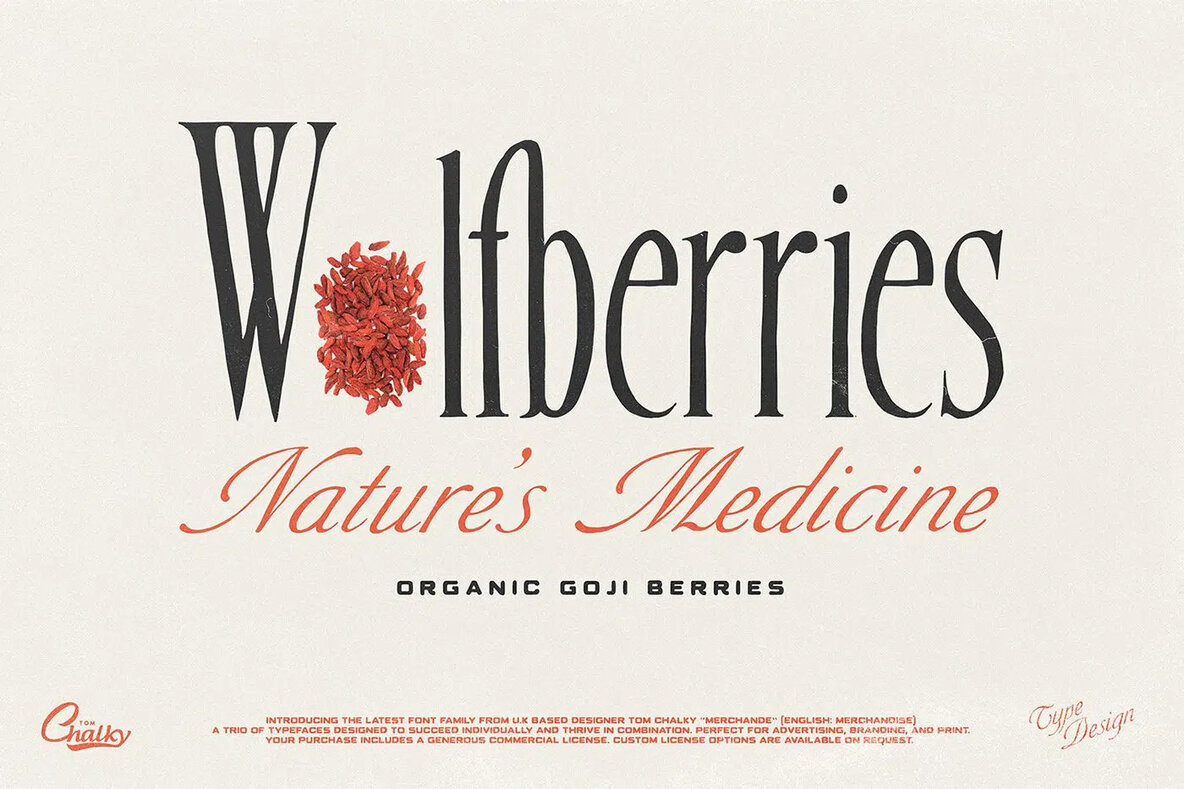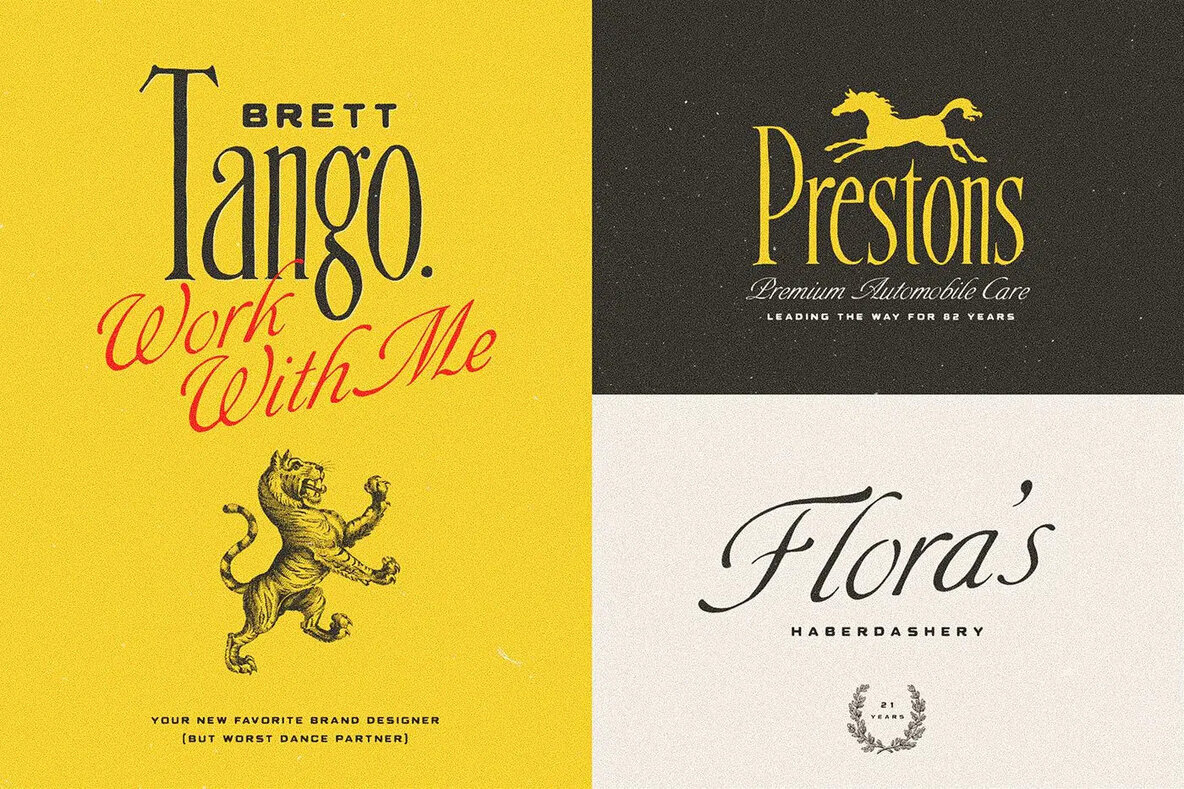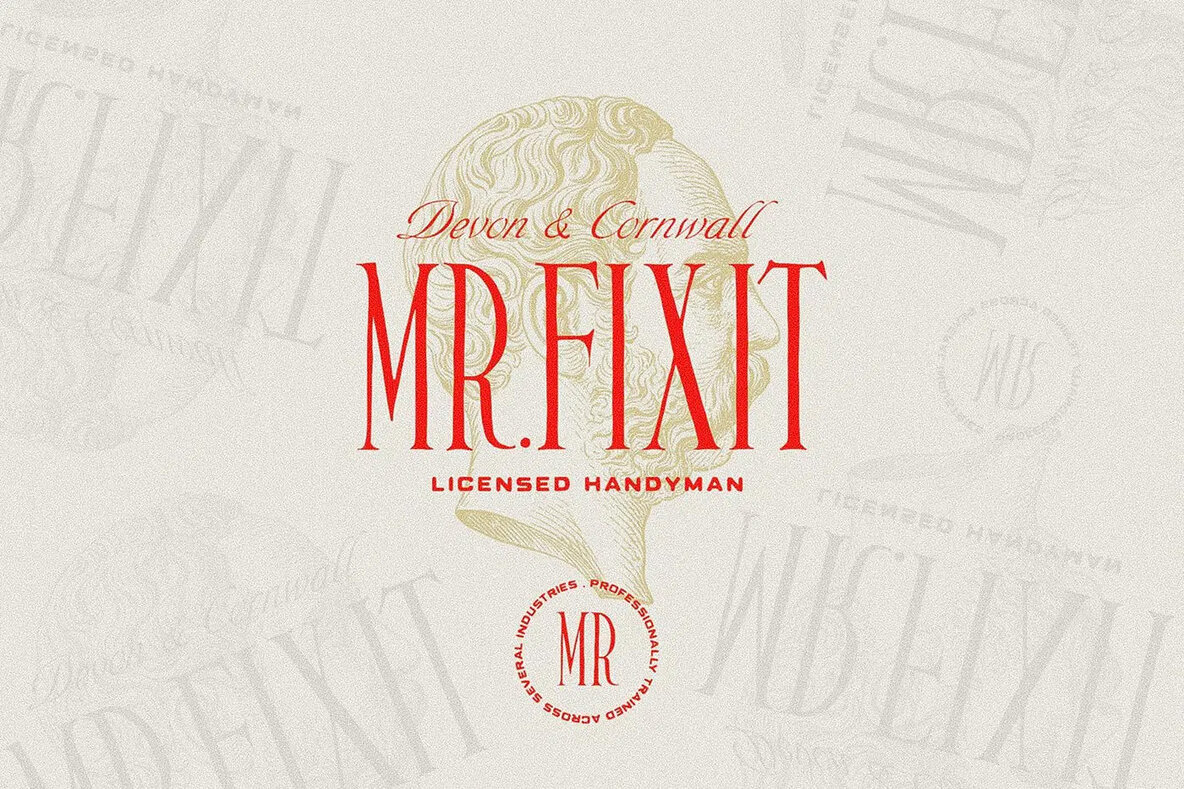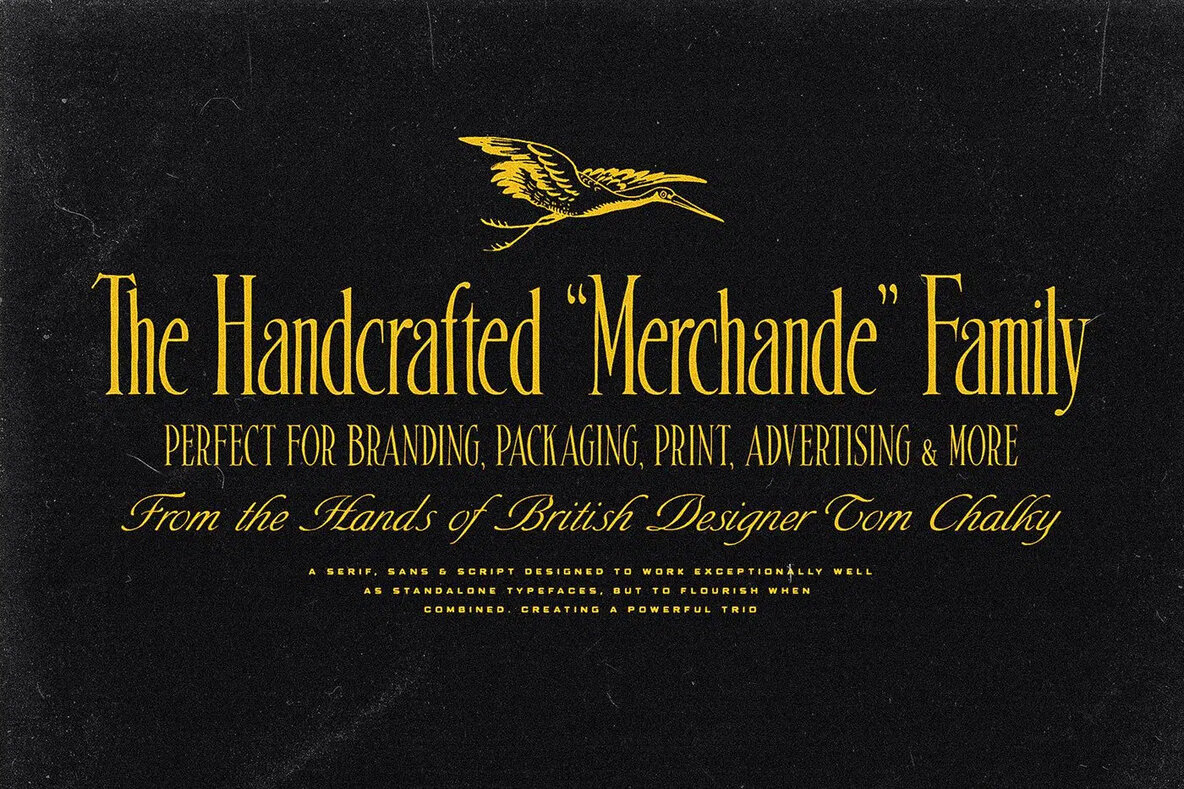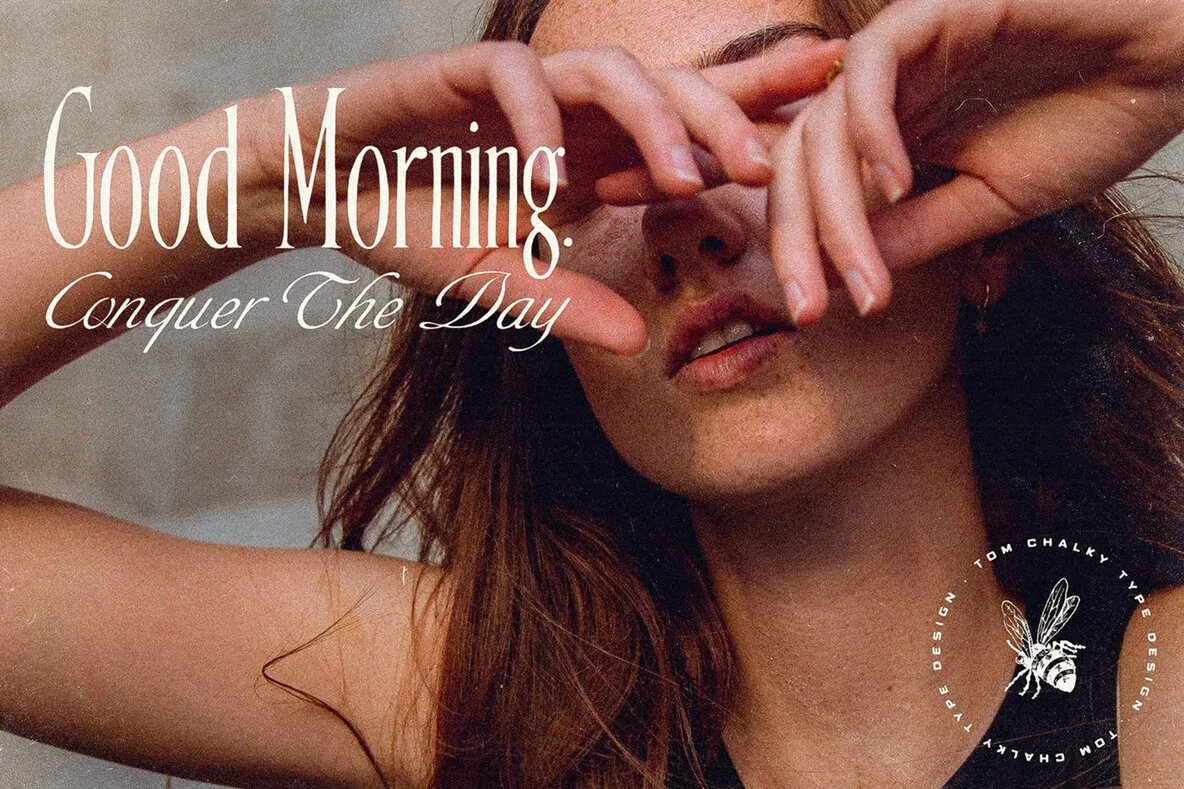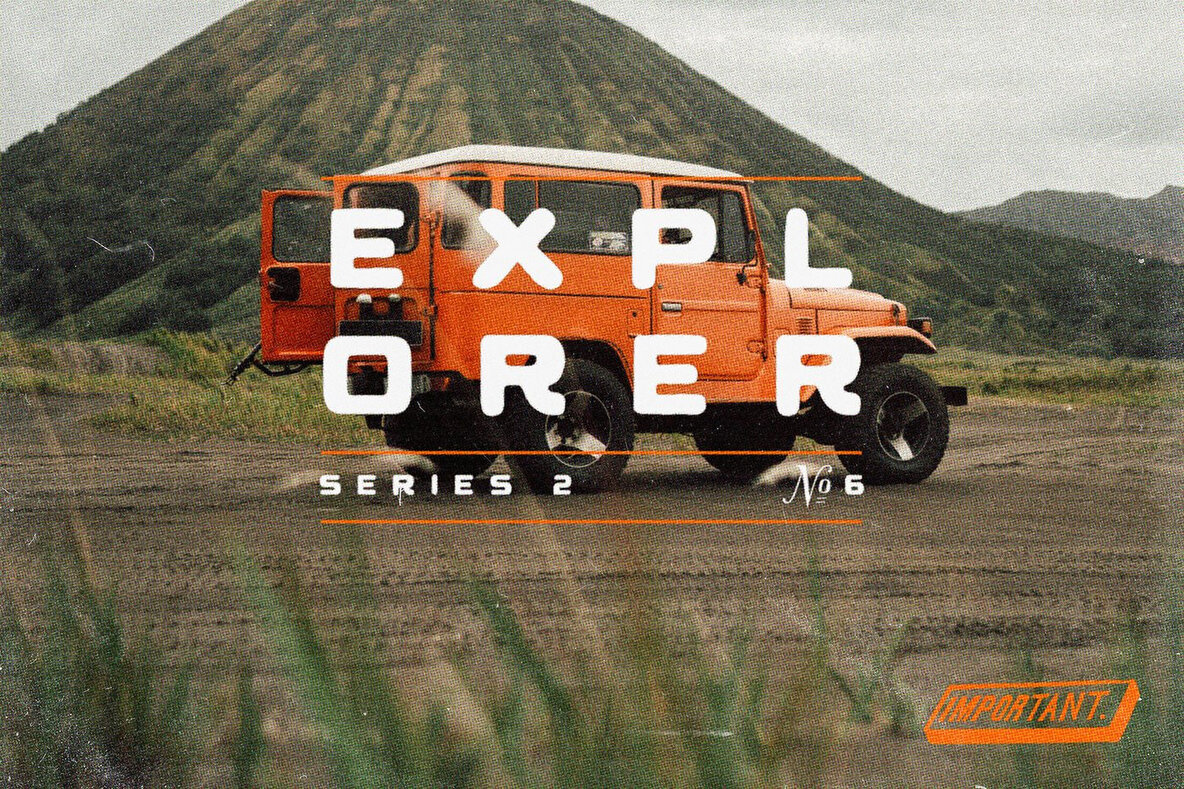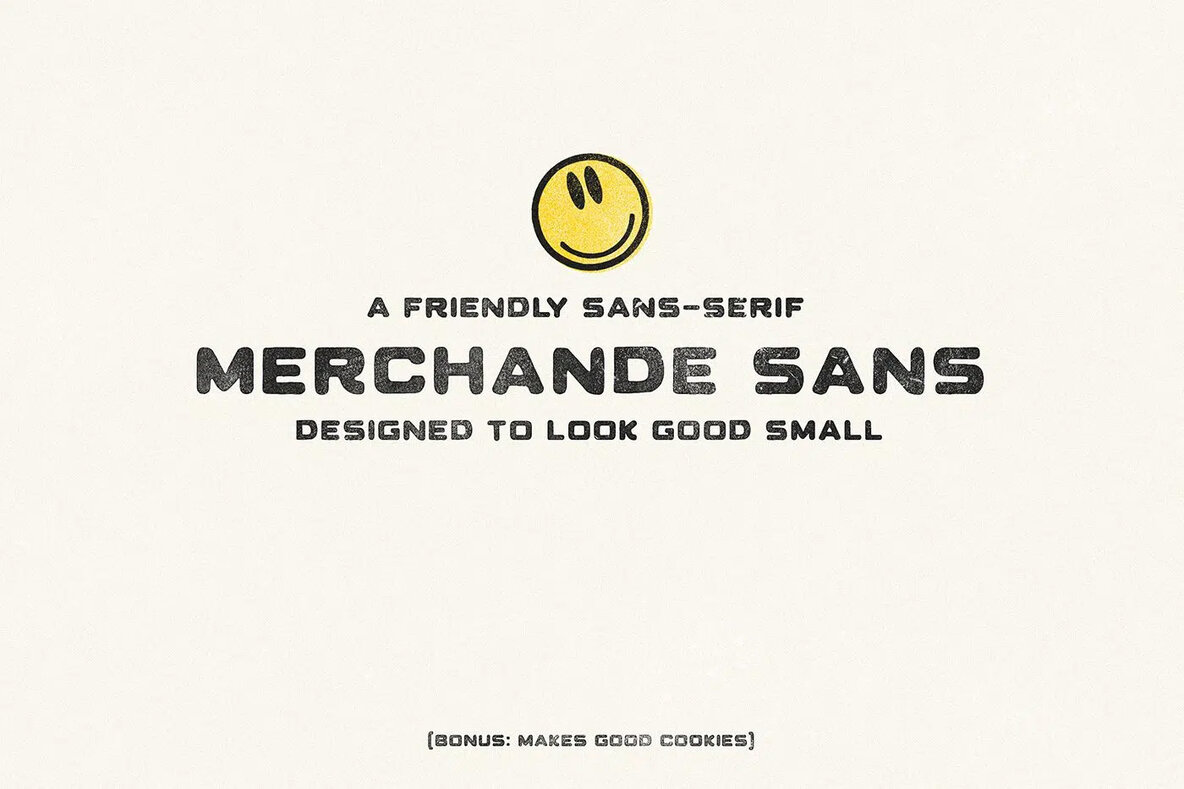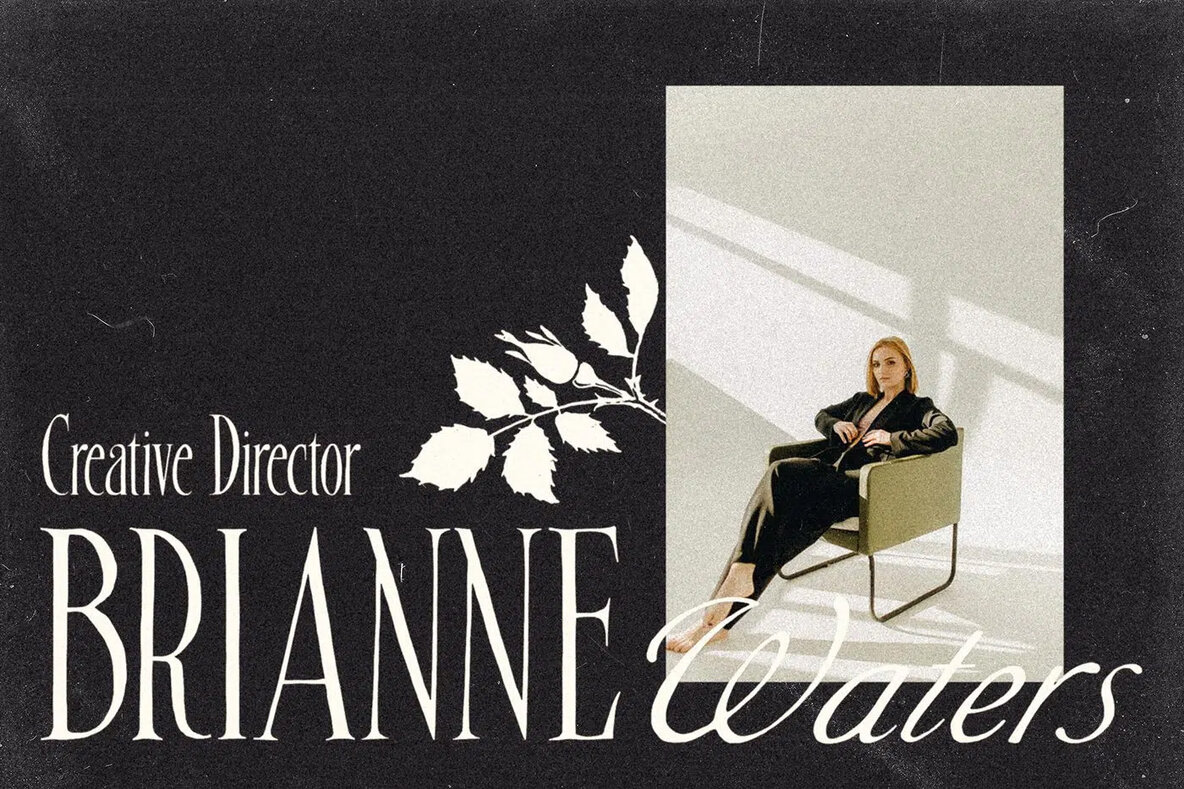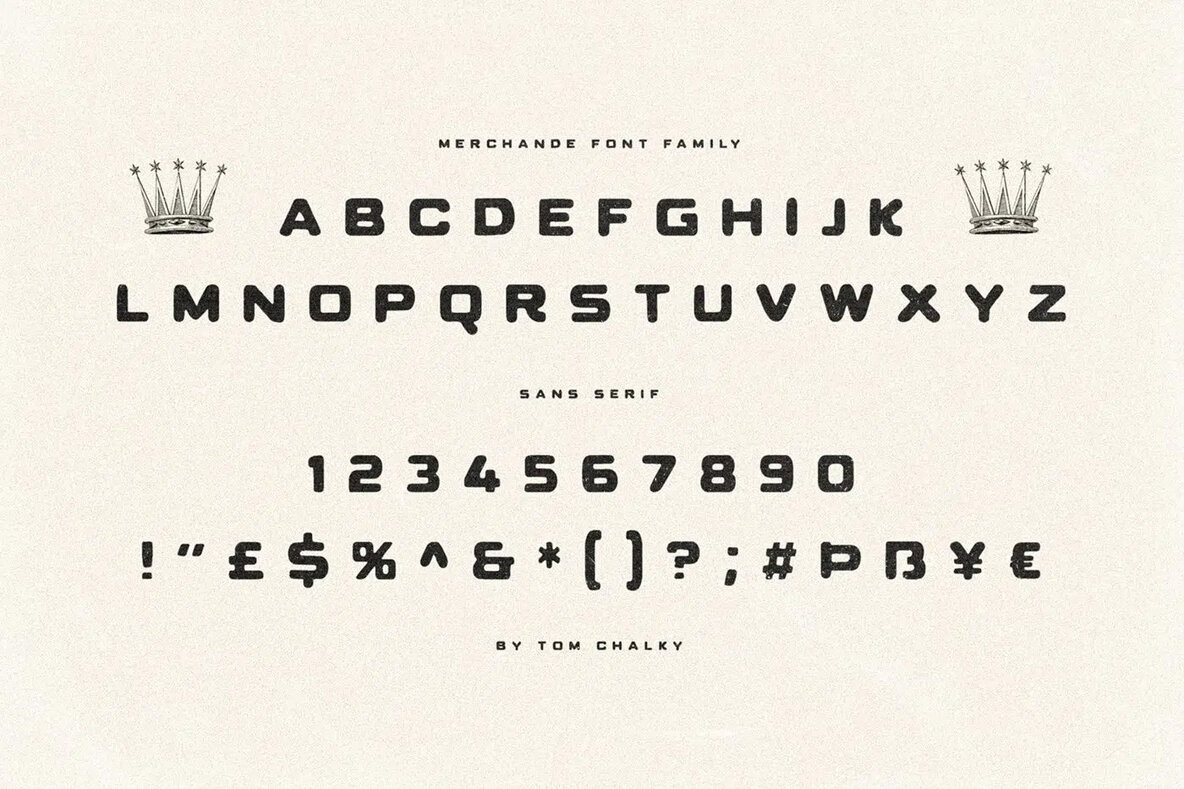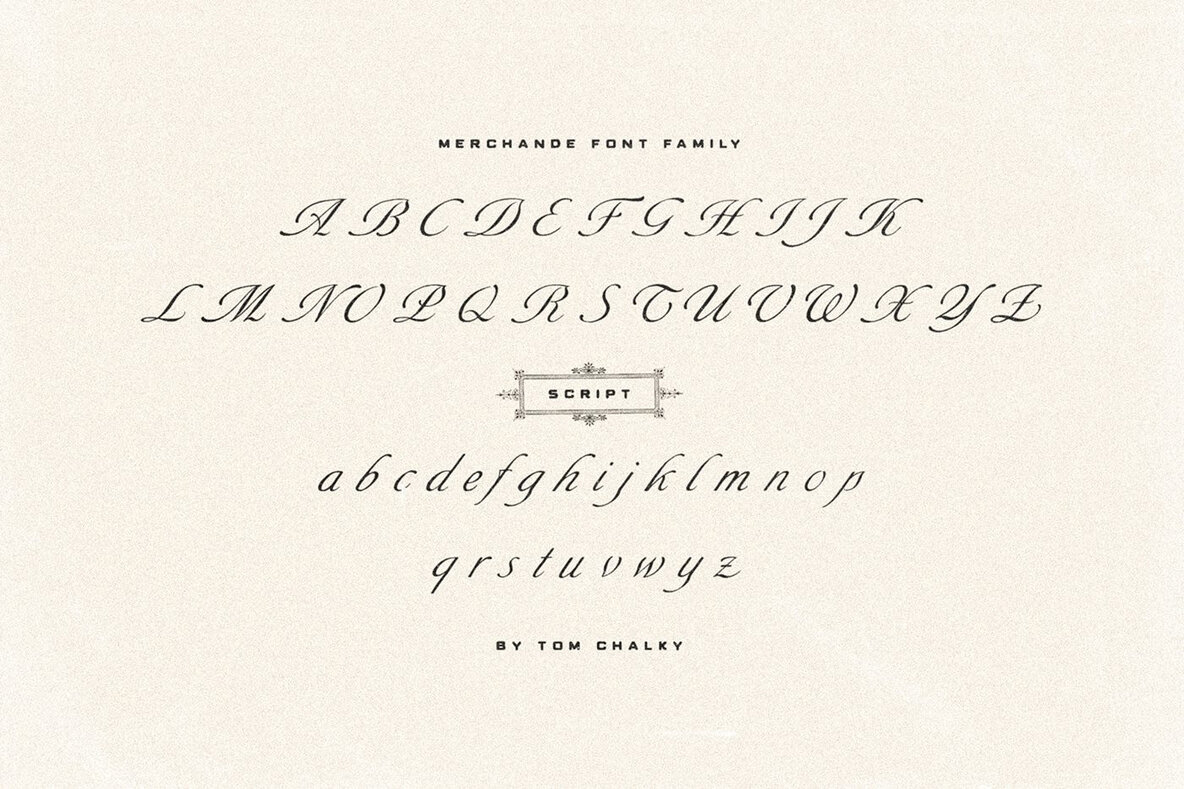
TC Merchande Trio Font
Merchande TC Regular
Merchande TC Sans Regular
Merchande TC Script Regular
Introducing Merchande – a refined font trio inspired by mid-century typography, crafted to elevate your branding, packaging, and advertising designs. This versatile trio includes a sharp serif, a clean sans, and an elegant script, each designed to work beautifully alone or harmoniously together. From vintage-inspired packaging to sophisticated print layouts, Merchande offers the flexibility to bring a timeless, stylish flair to your projects; Perfect for designers seeking a balance of personality and precision.